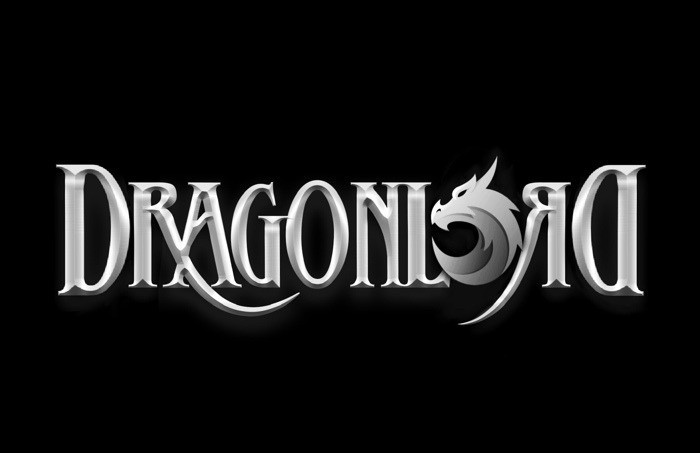
Garmillas Glyphtolite Font, Suitable for any design needs : logo, branding, modern advertising design, logos, poster quote, book / cover Title, editorial design, website / blog, card, t-shirts, and any hand-lettered needs.
Garmillas Glyphtolite Font
| Designer Name: | Abelt Dessler |
| Classification: | Display Fonts, Various Fonts |